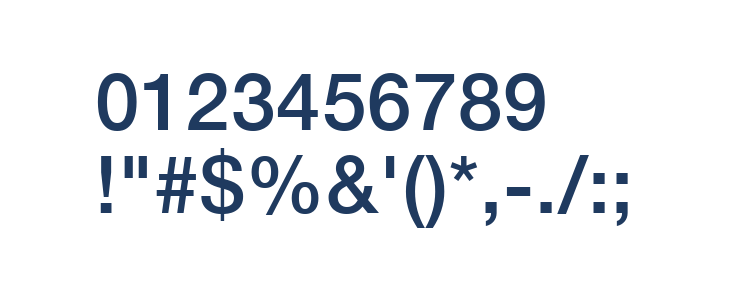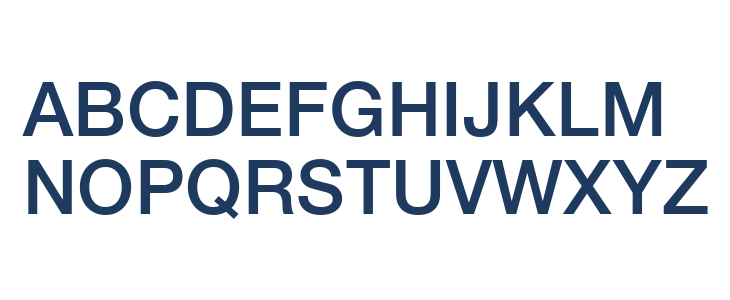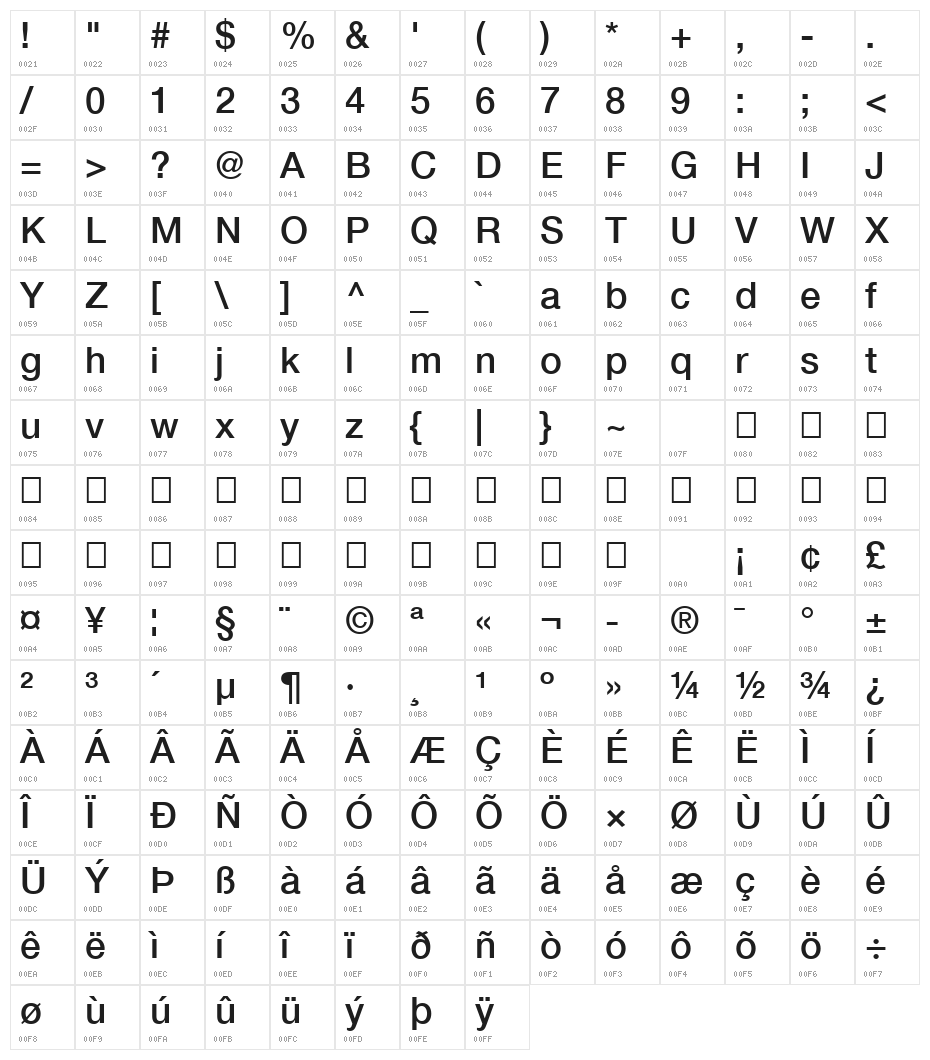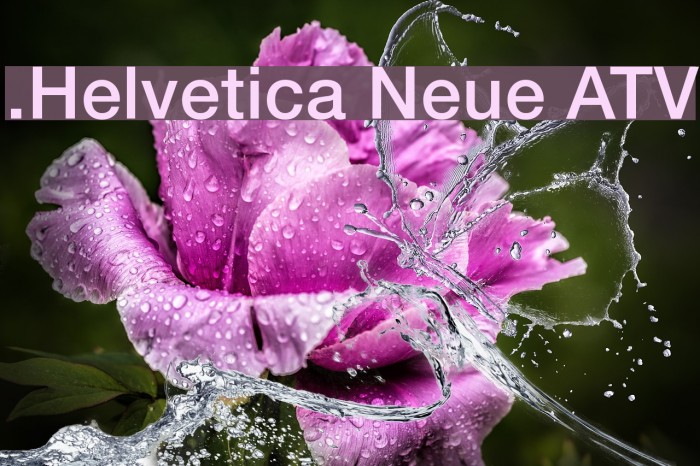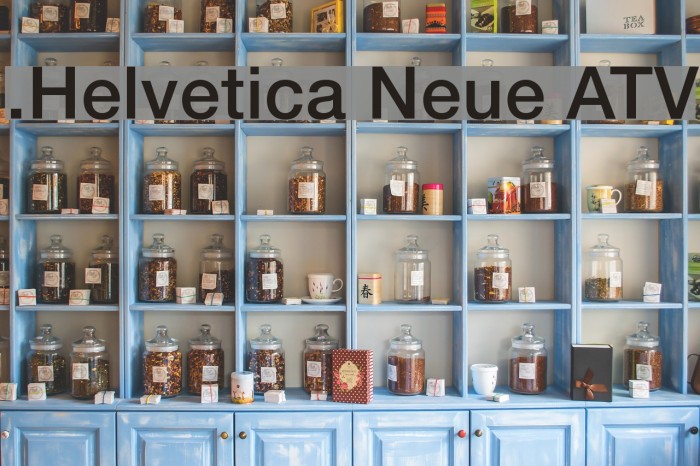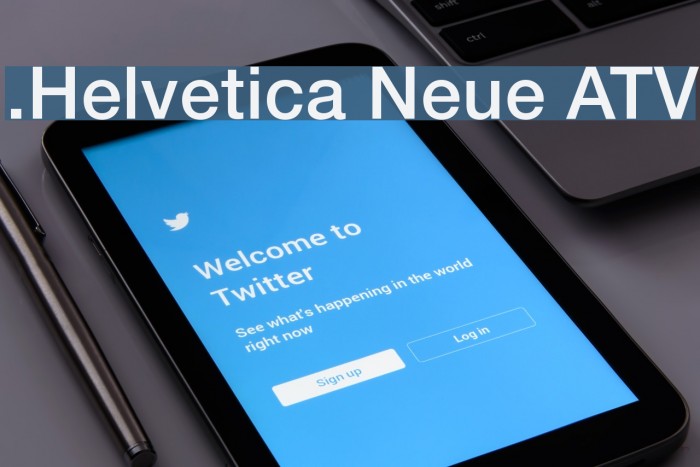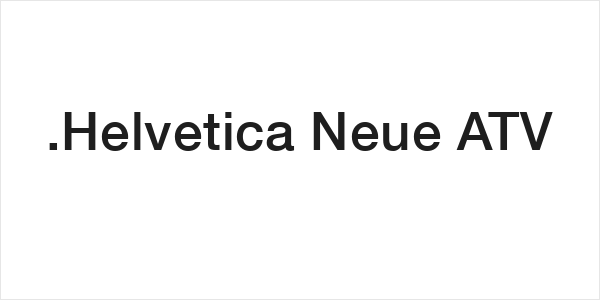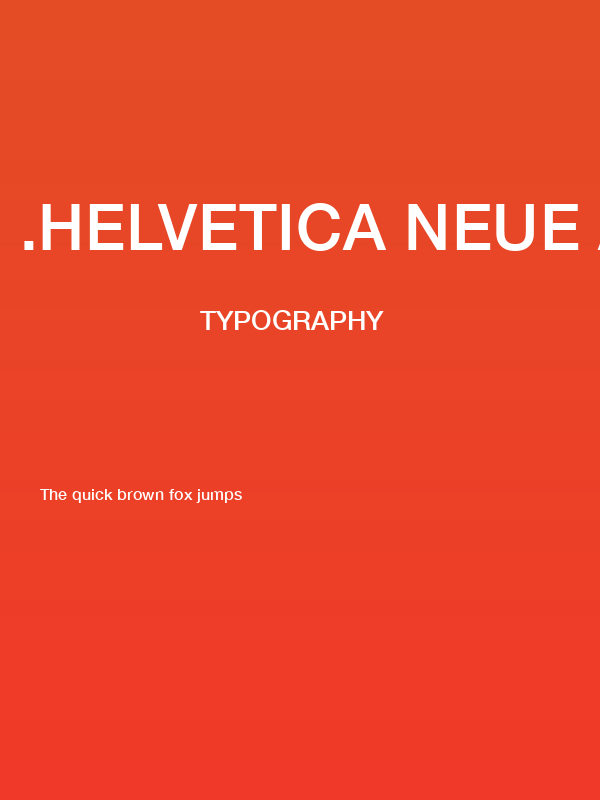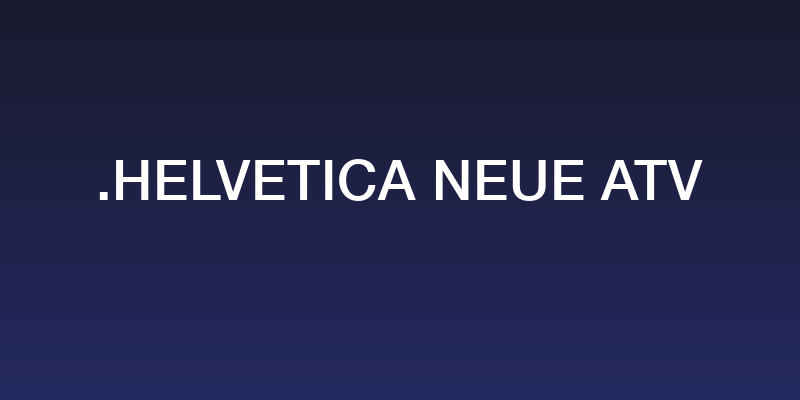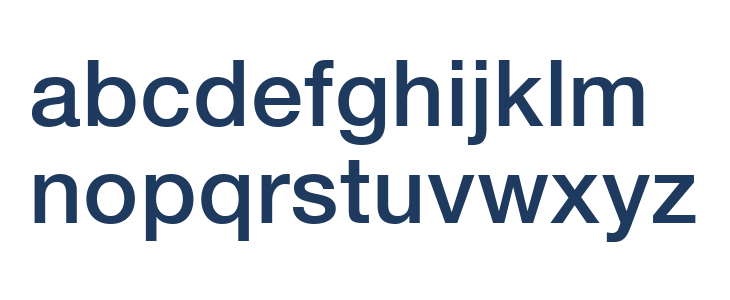
.Helvetica Neue ATV Font
.Helvetica Neue ATV Description
This font features a clean and modern sans-serif design with a focus on readability and versatility. The characters are well-balanced with consistent stroke widths, providing a harmonious appearance. The uppercase letters are bold and assertive, while the lowercase letters maintain a friendly and approachable look. The numerals are clear and easy to read, making them suitable for various applications. Special characters are designed with precision, ensuring they complement the overall style. This font is ideal for both digital and print media, offering a professional yet accessible aesthetic.